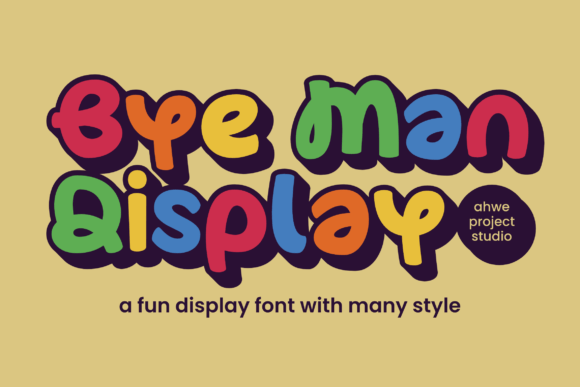
Introduction to Bye Man Font
Bye Man is a display font that combines bold letters and unique letterforms.
This font can be used for various designs such as birthday invitations, children’s tshirts, logos, headlines, posters, and so on This font is PUA encoded, which means you can access all of the glyphs and swashes with ease.
Bye Man Font offers exceptional quality and versatility, making it a valuable addition to your design toolkit. Whether you’re creating for personal projects or commercial use, Bye Man Font delivers professional results.